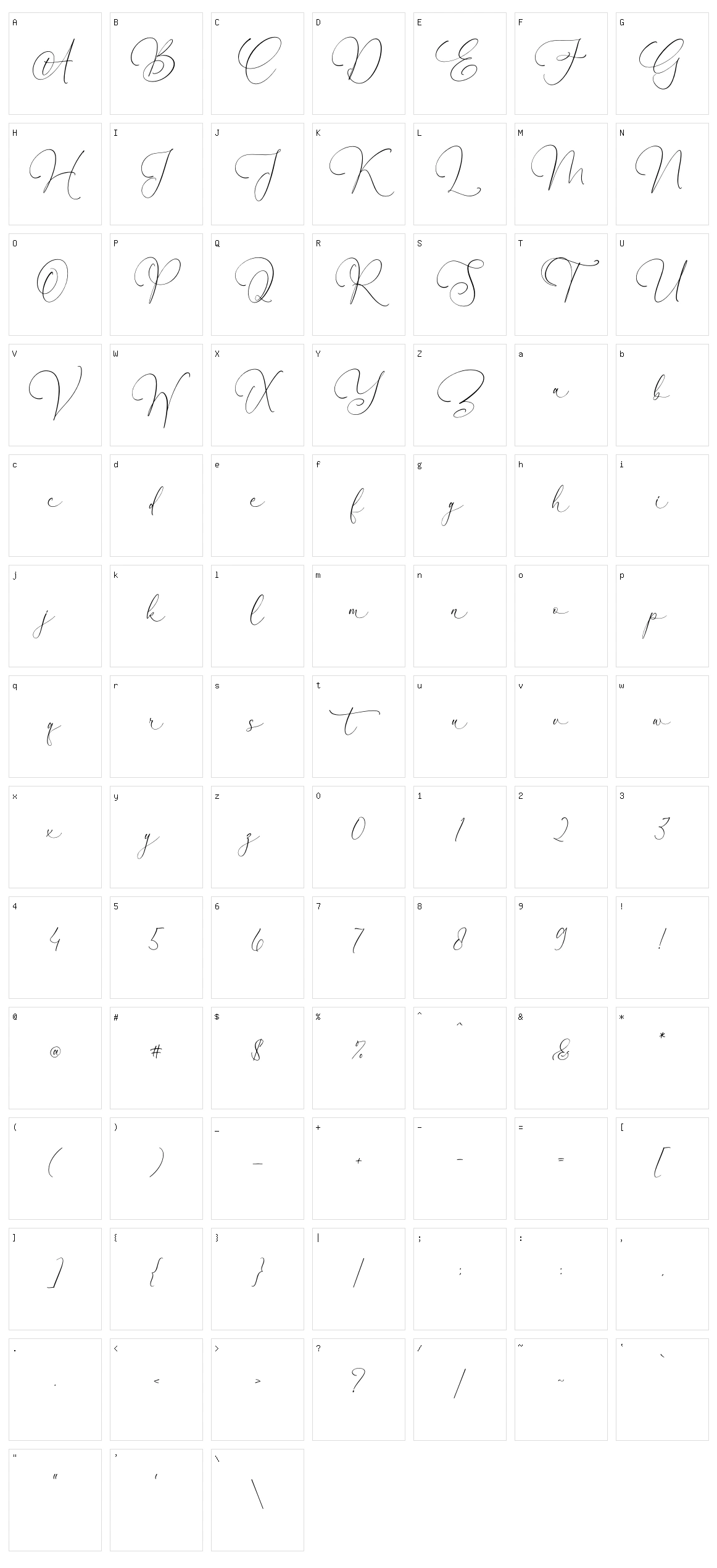
The free font Waltson Beauty is carefully designed by Storytype Studio, showcasing a thoughtful balance of creativity and usability and falls under the Script font style. When you download the ZIP file, it contains only 41.1 KB of font files, making it lightweight and quick to download. Please review the license details below to understand permitted usage and distribution rights. If license information is not available, we recommend using this font for personal projects only or contacting the author directly for commercial usage permissions.